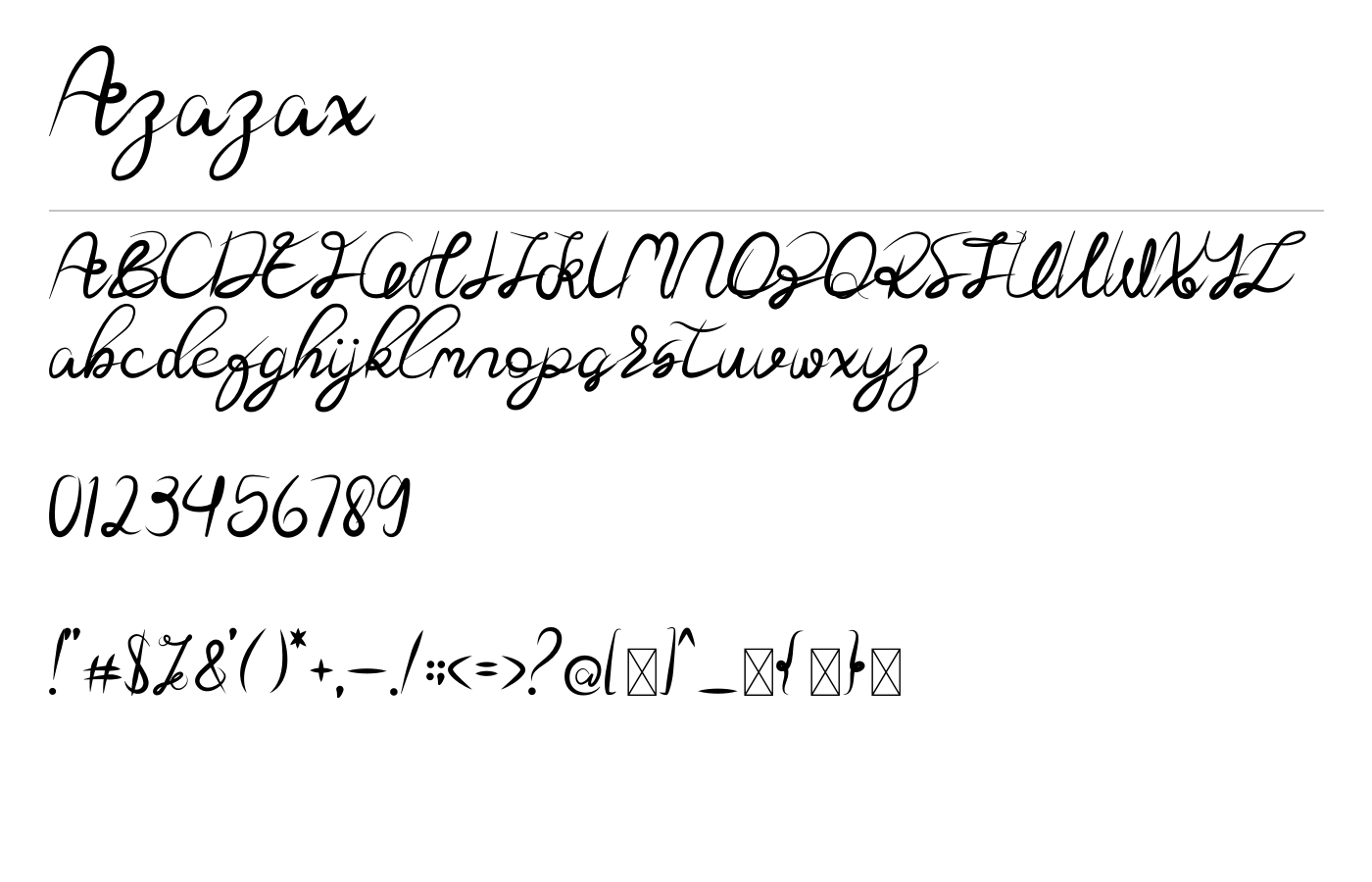
Azazax is an elegant, handwritten script font with a flowing, cursive style that combines thin and slightly varied stroke weights for a natural, personal touch. Its letterforms are tall and narrow with graceful loops and swashes, making it perfect for creative and stylish branding, invitations, or any design that needs a refined yet approachable look. This font works well in headlines and decorative text where a sophisticated, artistic flair is desired.
Azazax Font
About Azazax Font